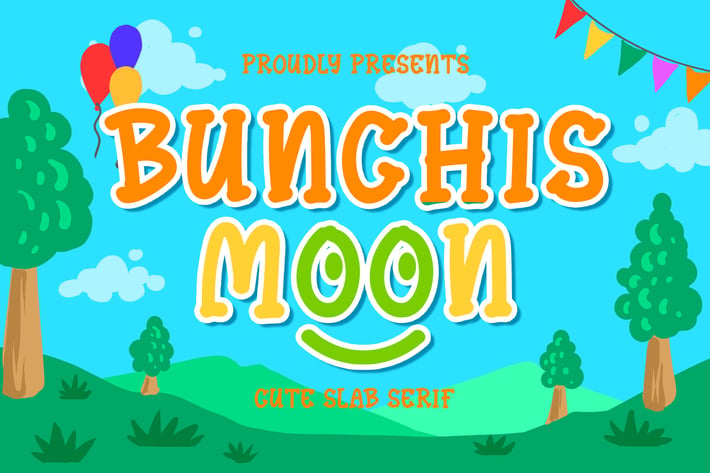
Bunchis Moon - Cute Slab Serif Typeface
Introducing of our new product the name is Bunchis Moon Cute Slab Serif Typeface. Bunchis Moon inspired from comic style very good for kids poster, flyer childrenbook, cartoon, comic etc
MULTILINGUAL ACCENT :
ŽžŠŒšŸÀÁÂÃÄÅÆÇÈÉÊËÌÍÎÏÐÑÒÓÔÕÖØÙÚÛÜÝßàáâãäåæçèéêëìíîïñòóôõöøùúûüýÿ